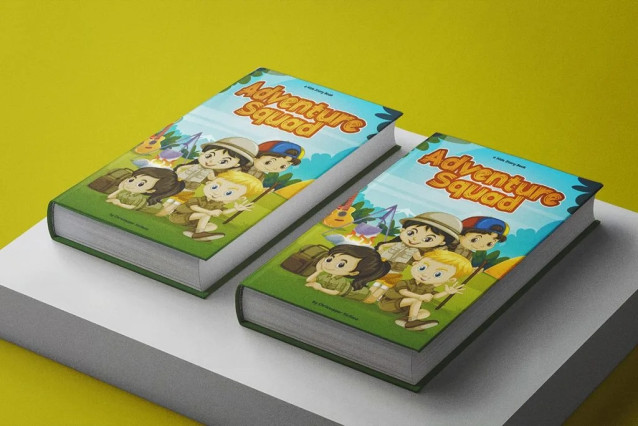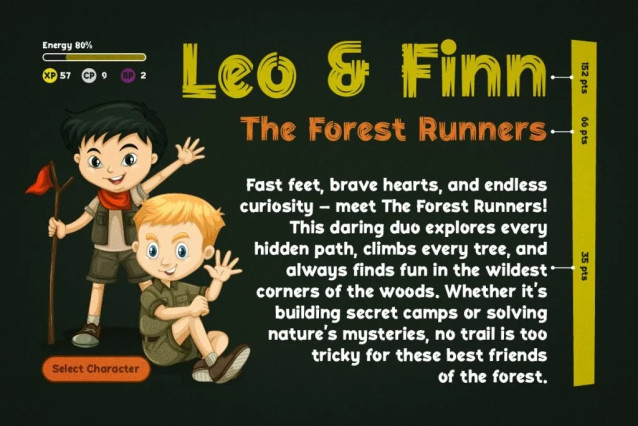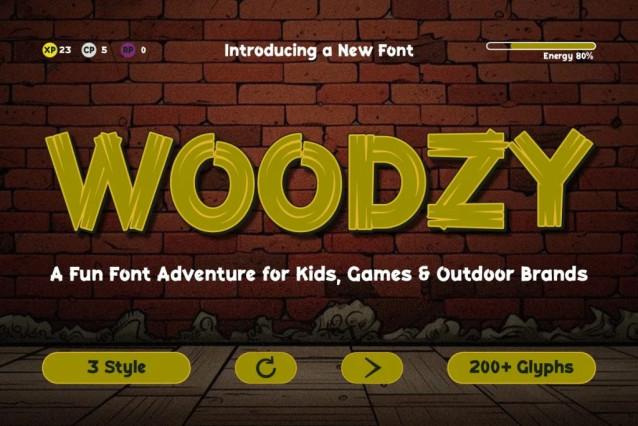
Woodzy Font
Woodzy Font is the perfect playful font for kids, bringing a sense of adventure to your designs. Featuring rounded edges, quirky details, and bold strokes, Woodzy adds charm and fun to any project, whether it’s for kids’ games, branding, or outdoor products. This playful font for kids is ideal for creating engaging, nature-inspired designs.
It’s perfect for projects that need to feel adventurous, nature‑inspired, and kid‑friendly while staying clean and modern.